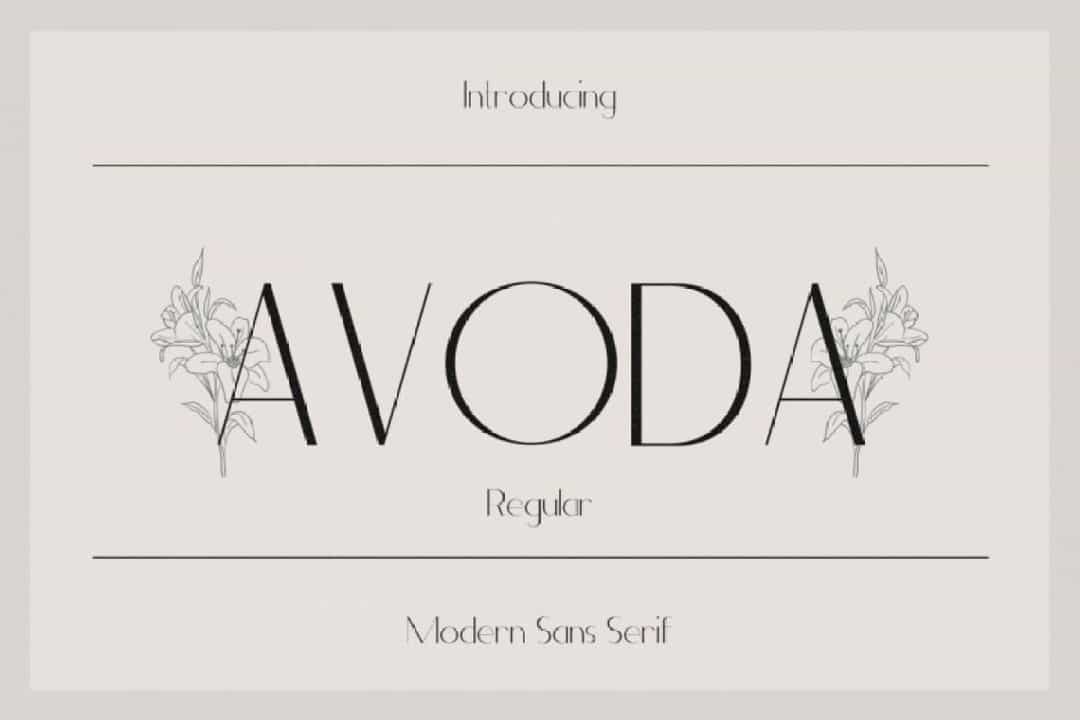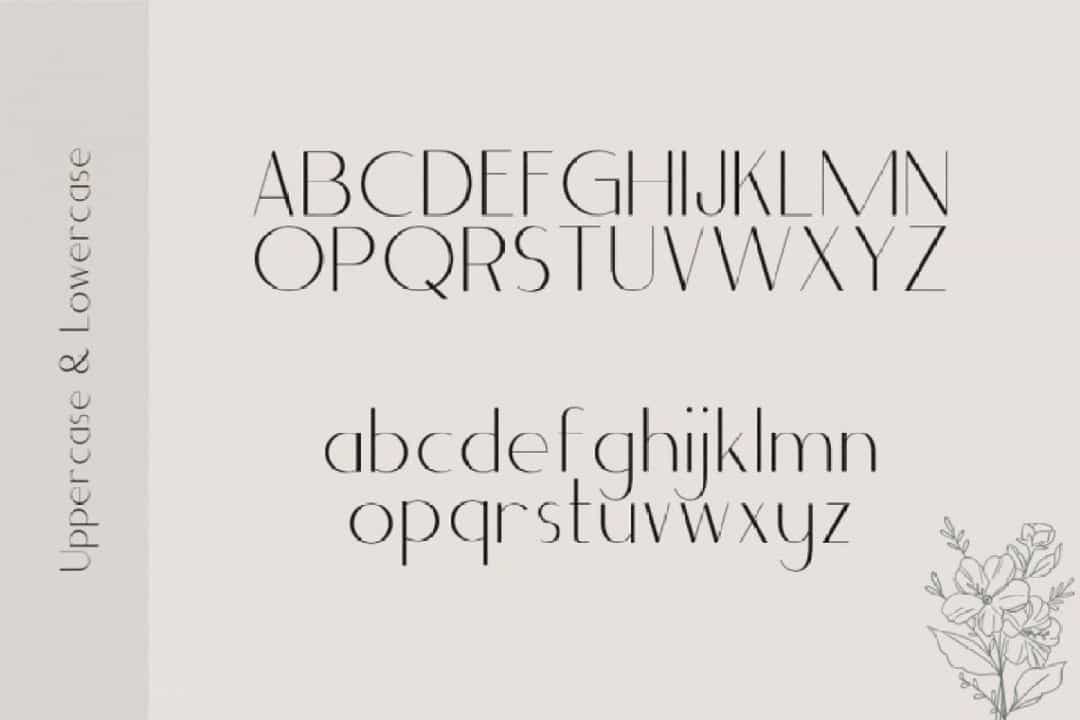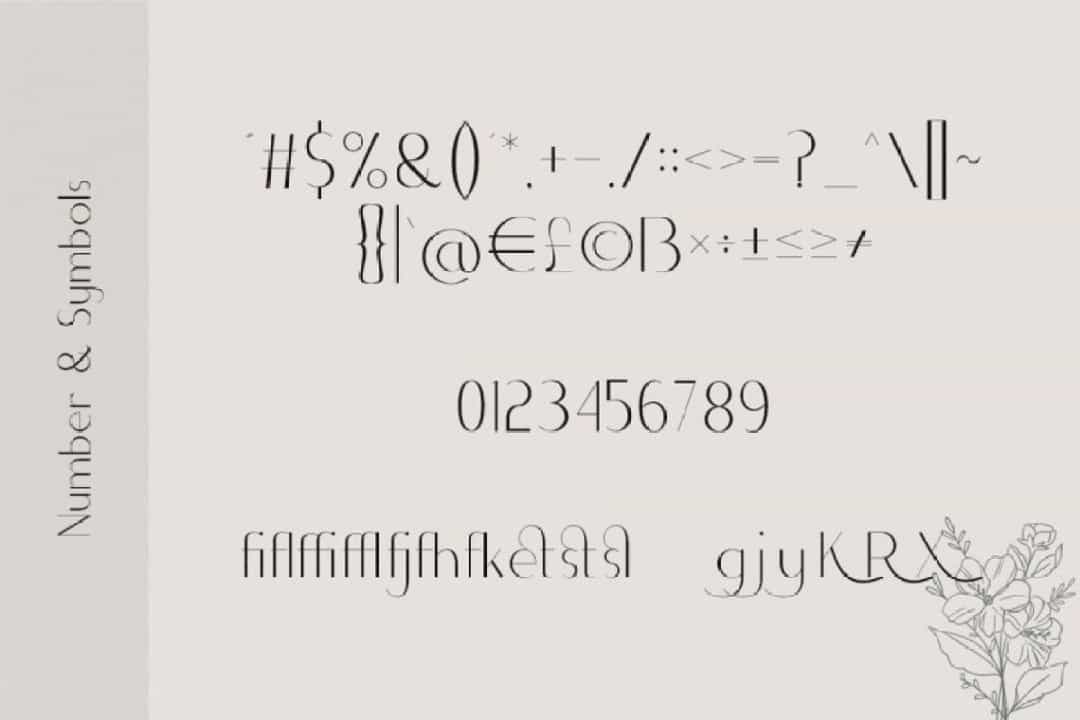
Avoda is a font that has clean and minimalistic sans serif design, with rounded edges. It does not matter what topic is discussed in any piece of work being created, Avoda font will simply enhance all of it!